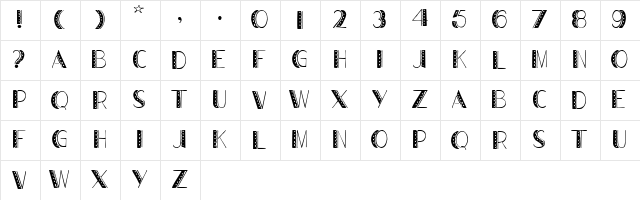
Detecter Regular
Design Context for Detecter Typeface
Detecter is a composed and adaptable typeface that performs quietly and consistently across a wide range of design contexts.